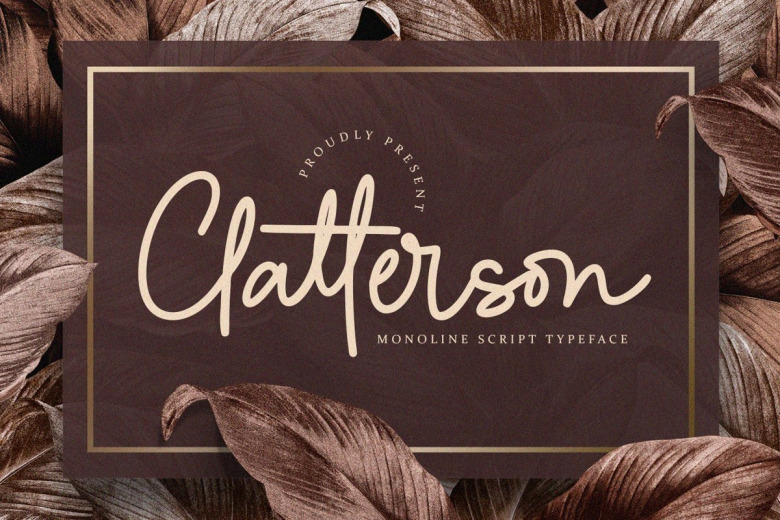
Clatterson Typeface
Clatterson Handwritten Script Font is a stunning monoline style script font with authentic and casual feels. It will be perfectly used for Branding, Logo Design, Lettering, Logotype, Clothing, Poster, magazine, packaging, posters, shopping bags, t-shirts, book covers, photography, special events and other design project.